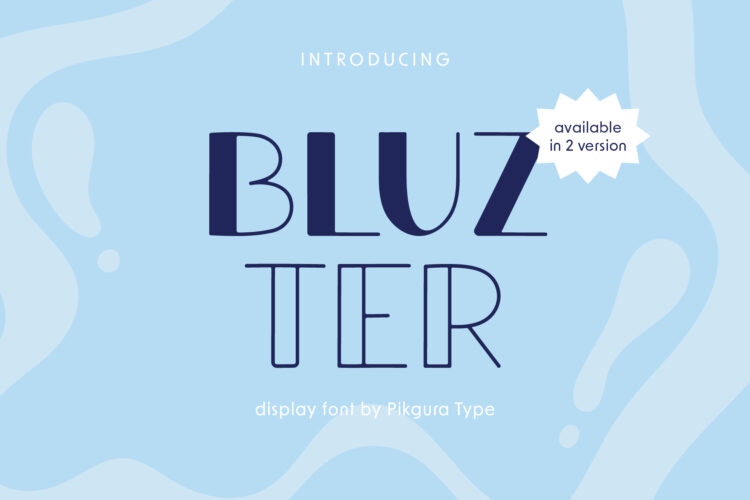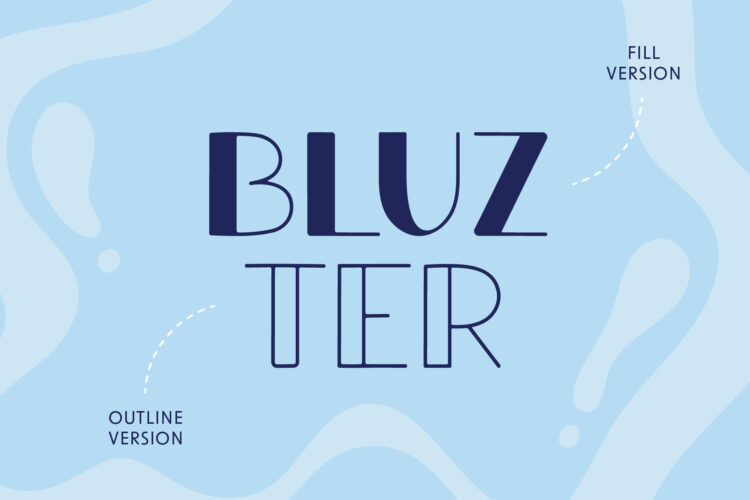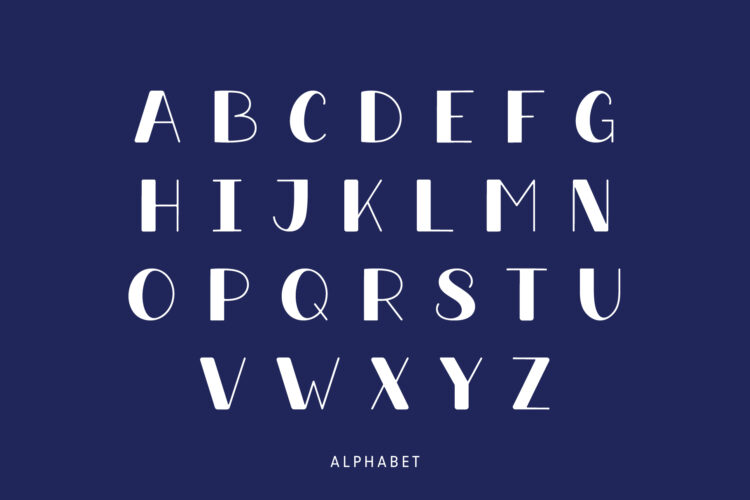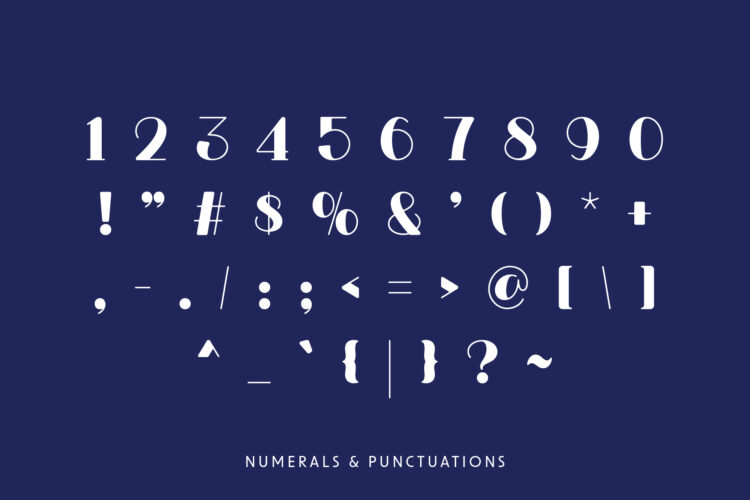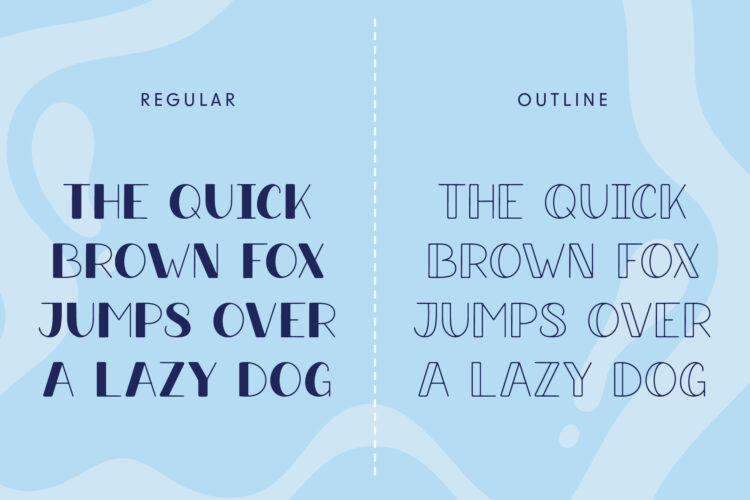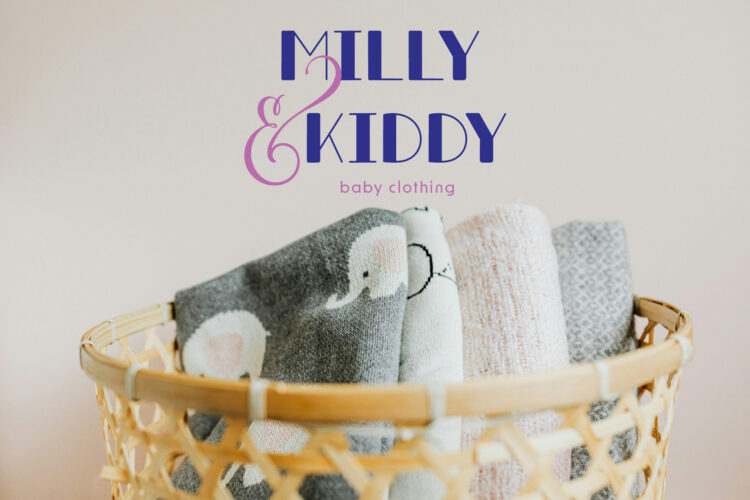
Bluzter - Fill
Bluzter - Outline
Bluzter is a handmade display font crafted to capture attention and express creativity. Its letters feature a bold contrast between thick and thin strokes, giving every character a unique rhythm. This visual balance creates a strong, handcrafted personality that works beautifully in both modern and artistic designs.
Bluzter is available in two distinctive styles: Fill and Outline. The Fill version delivers a solid, confident feel, while the Outline style adds a touch of elegance and lightness. You can combine the two for dynamic results or use them separately to match your project’s tone. Each style keeps Bluzter’s playful structure and organic flow.
The font includes complete alphabets, numbers, and essential punctuation marks. It’s a great choice for posters, greeting cards, logos, and branding projects. Whether you’re creating something bold or subtle, Bluzter adds warmth, balance, and handmade charm to every design.
Bluzter – Display Font